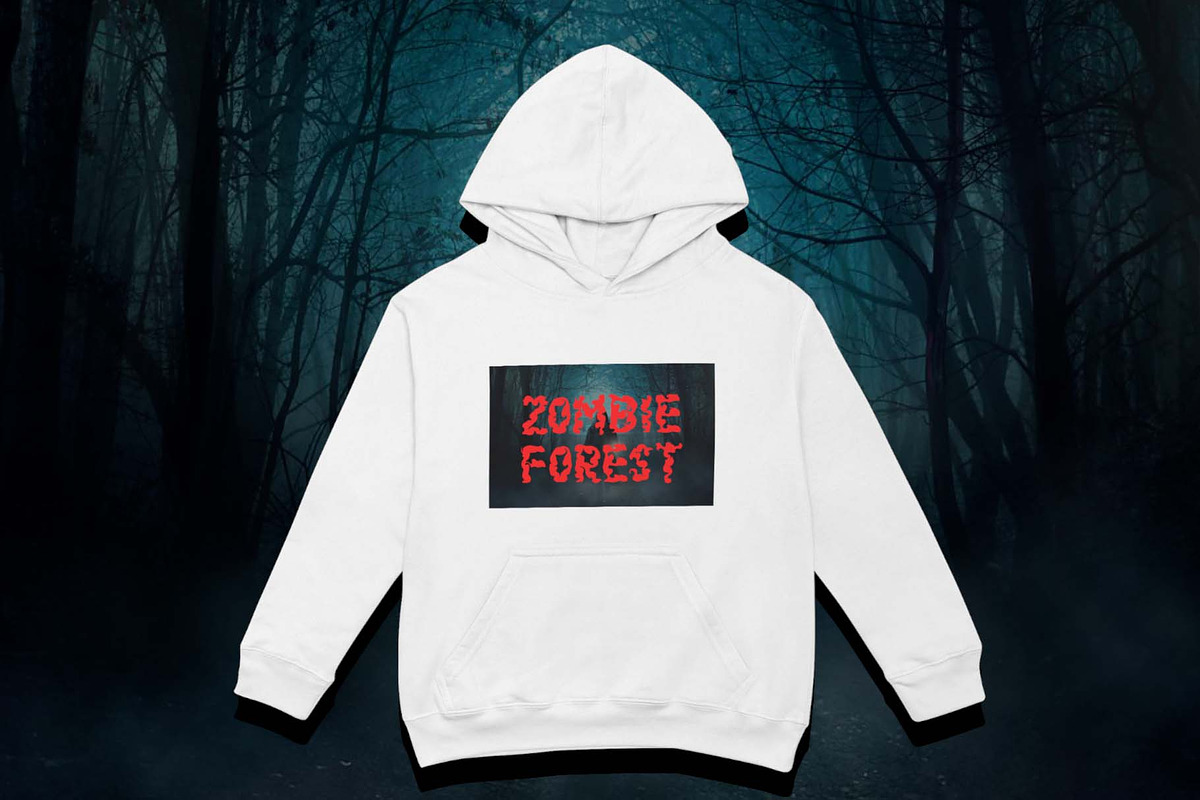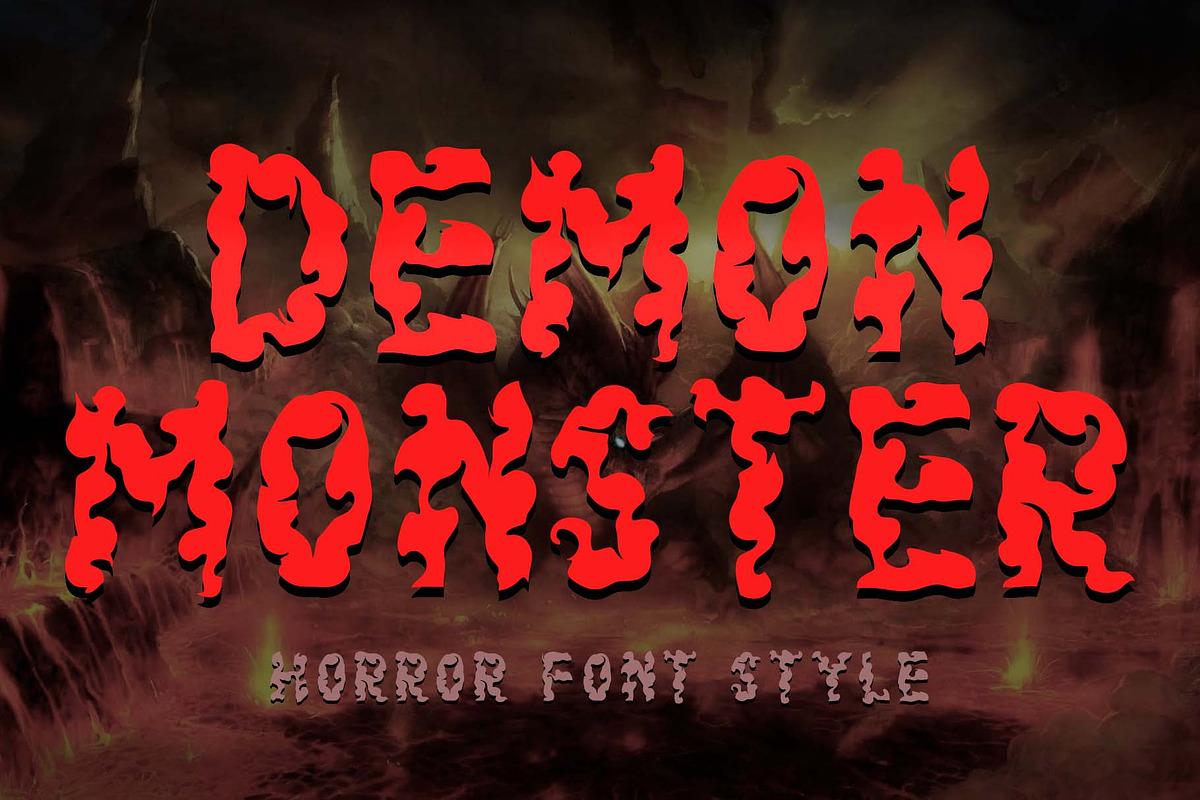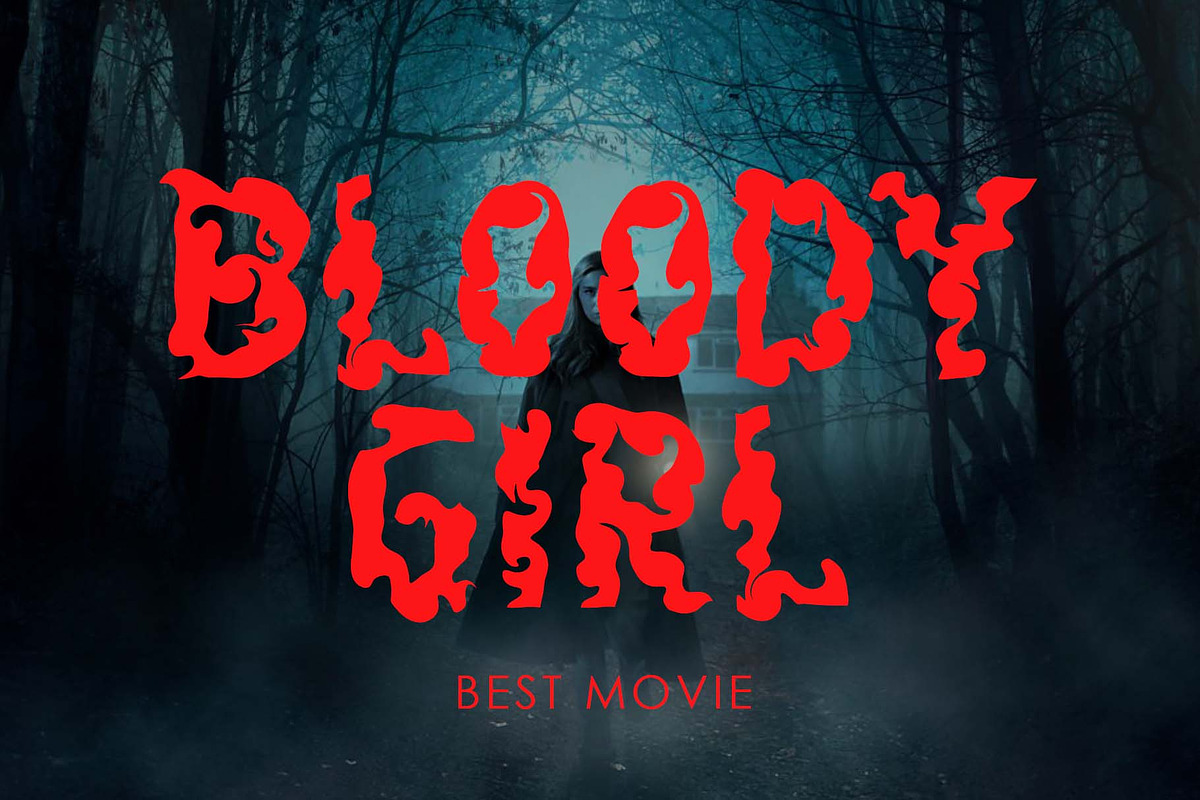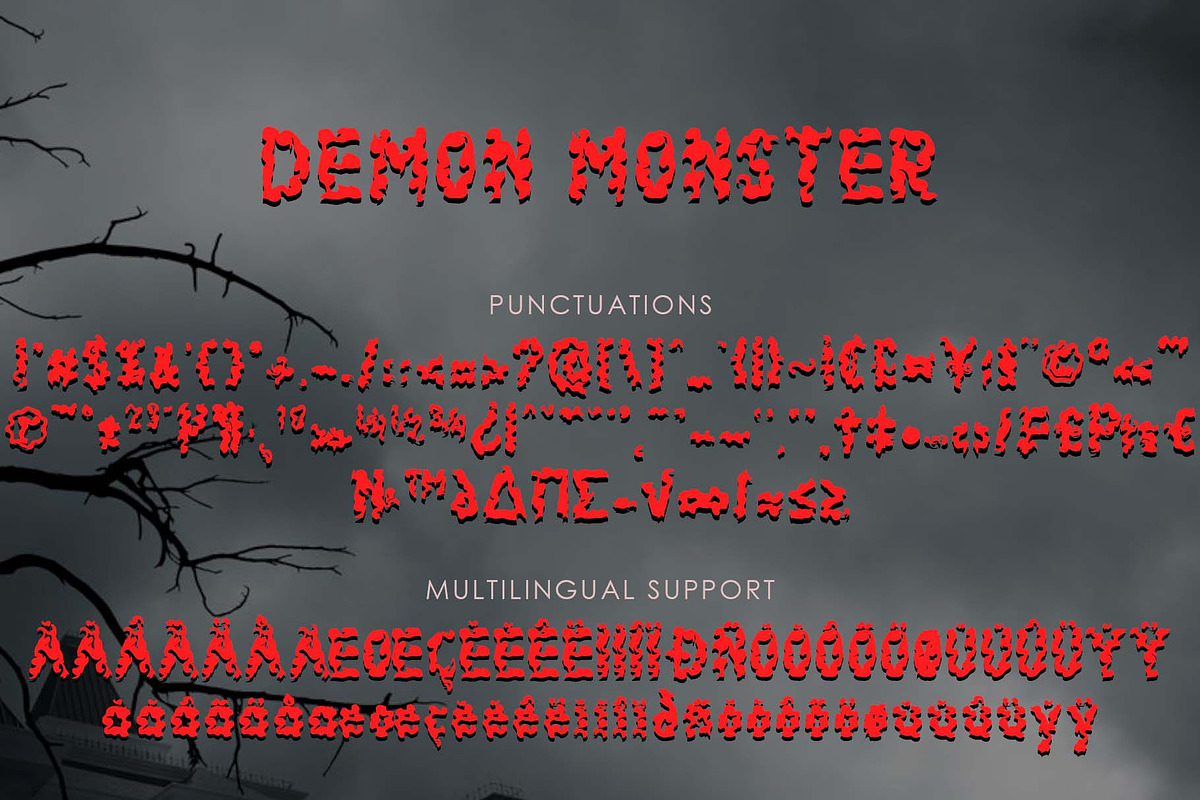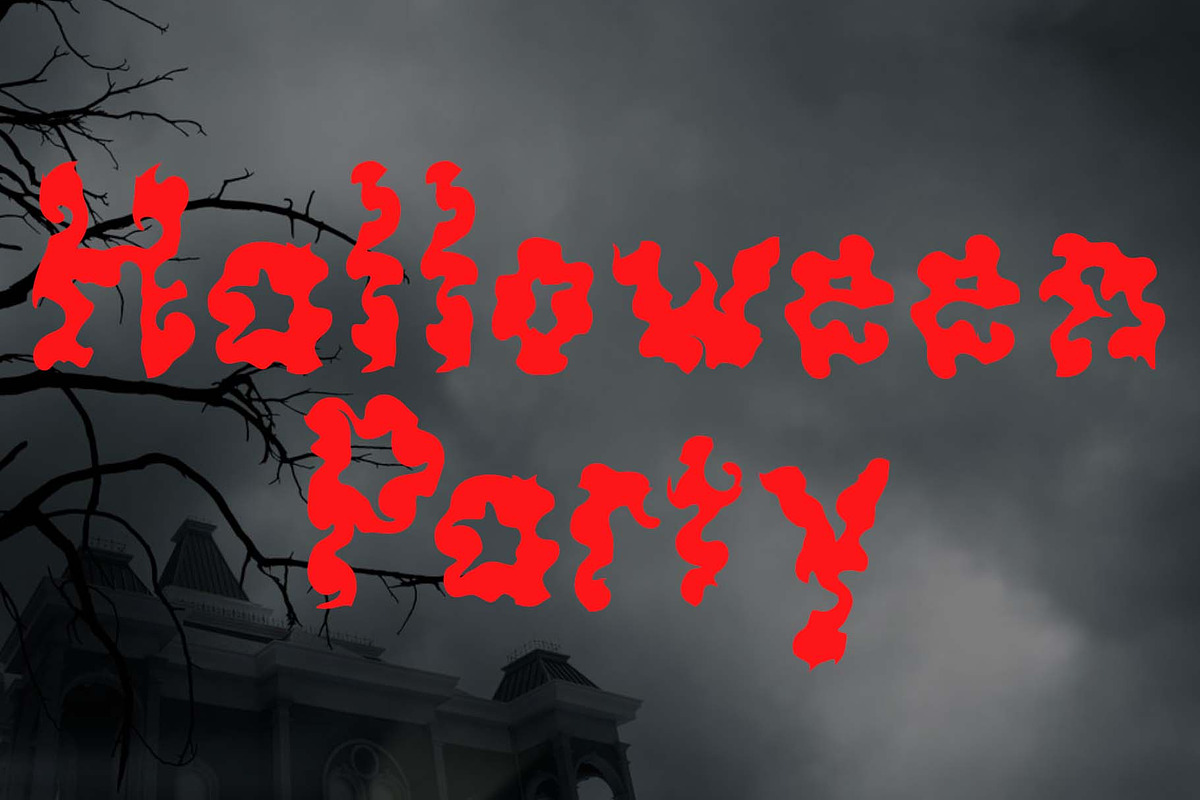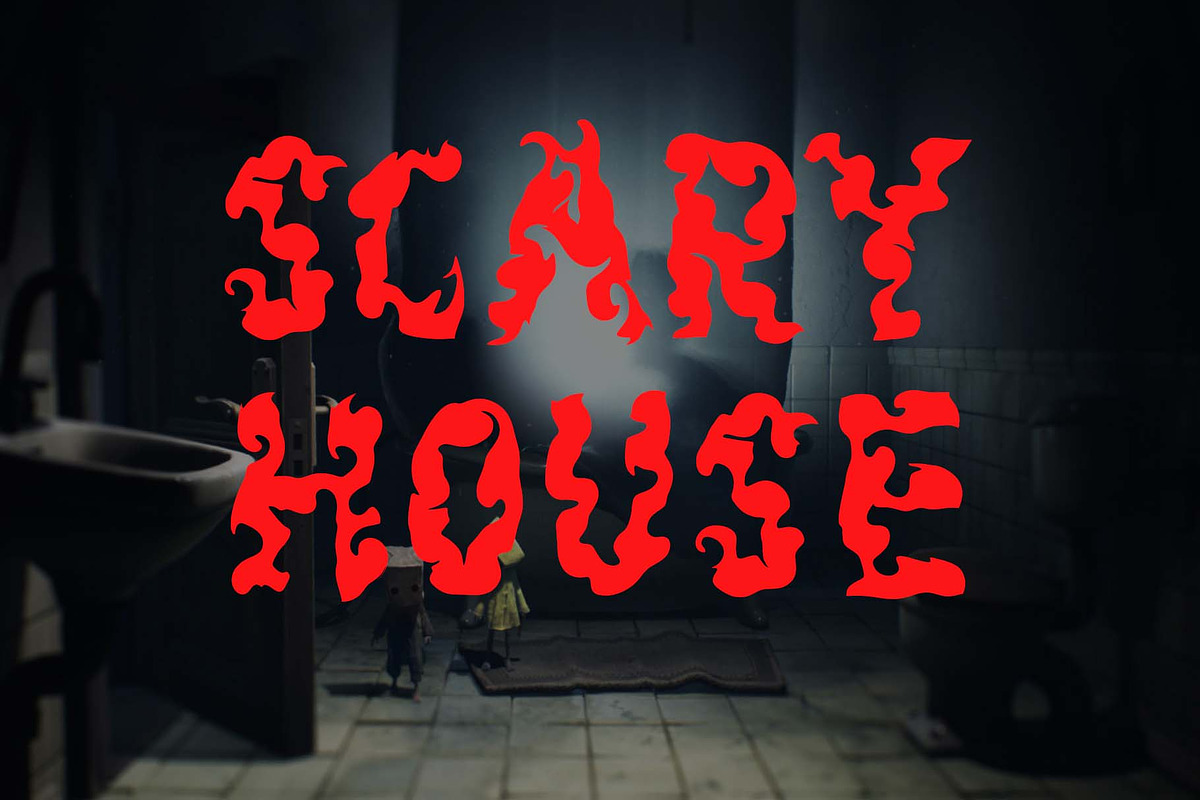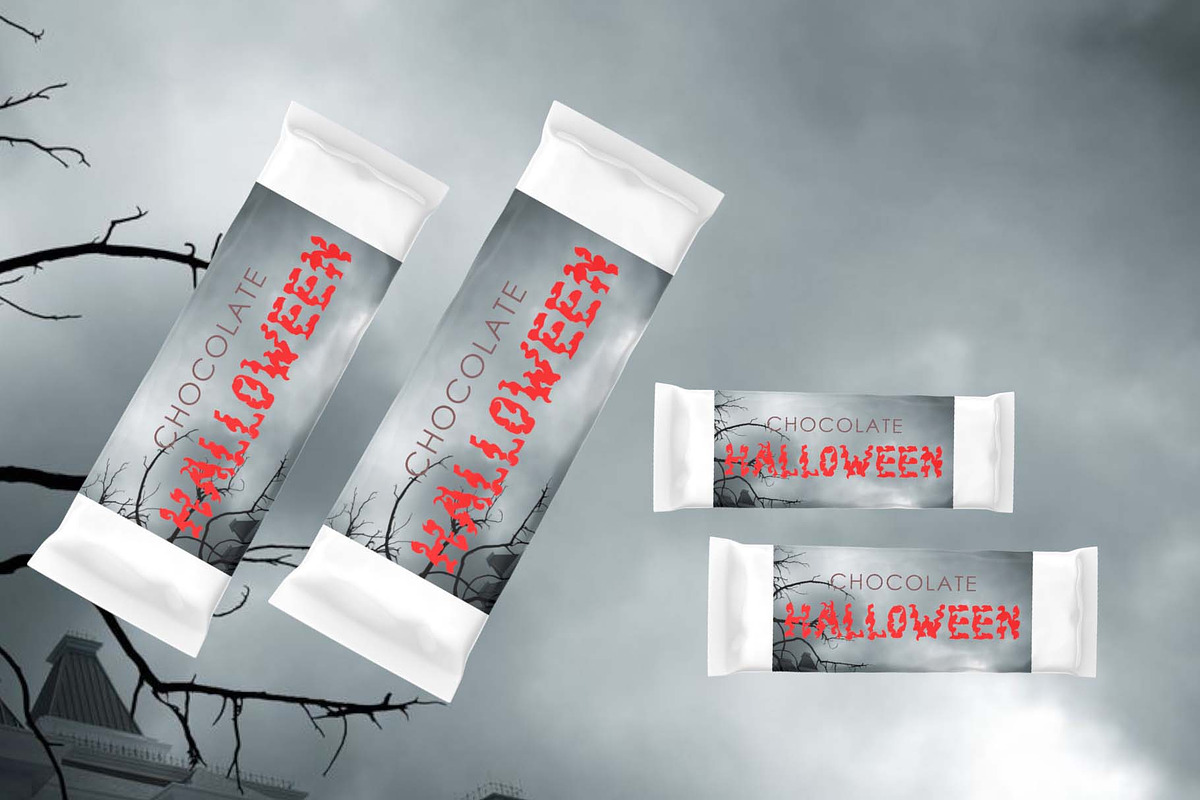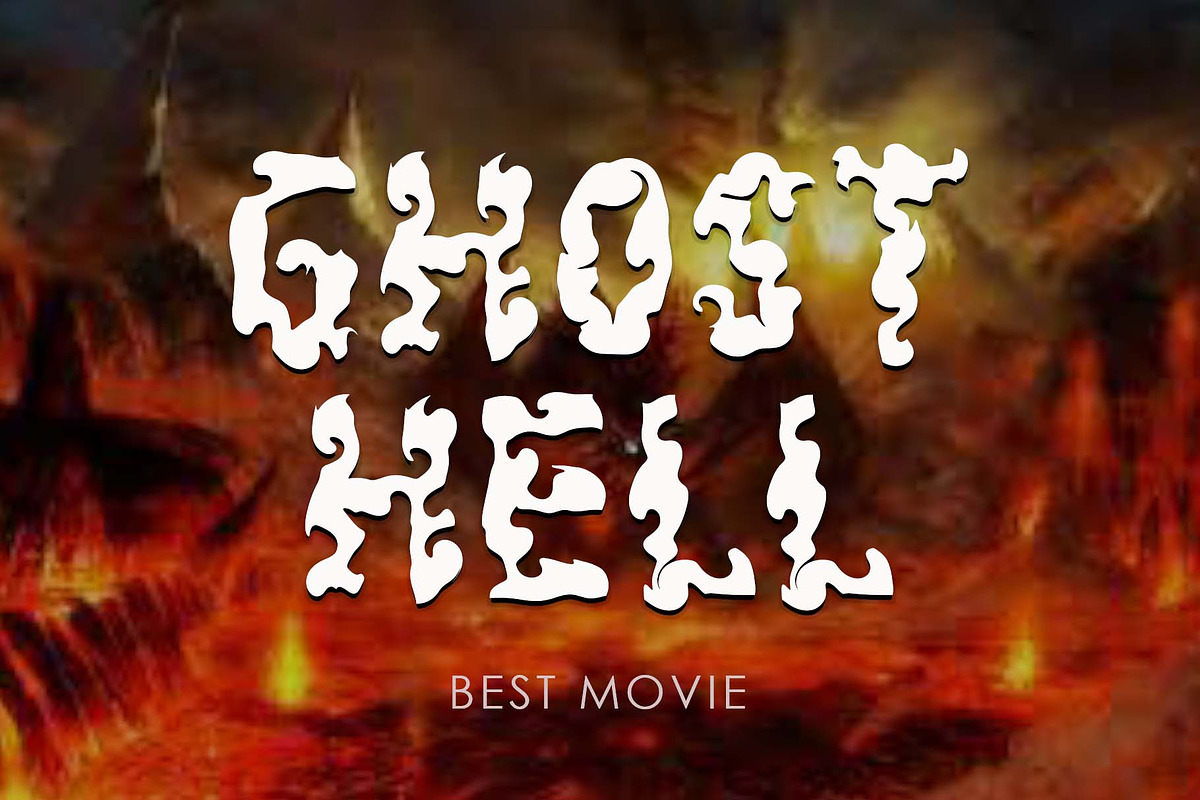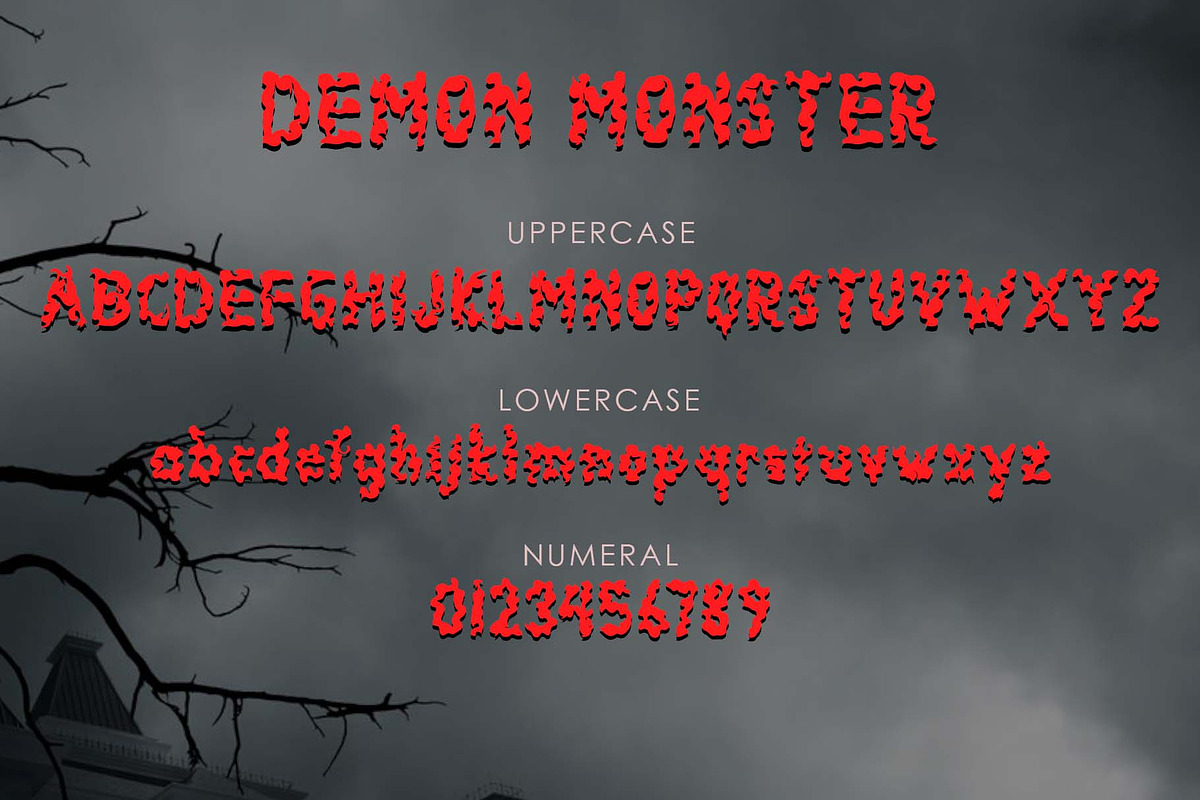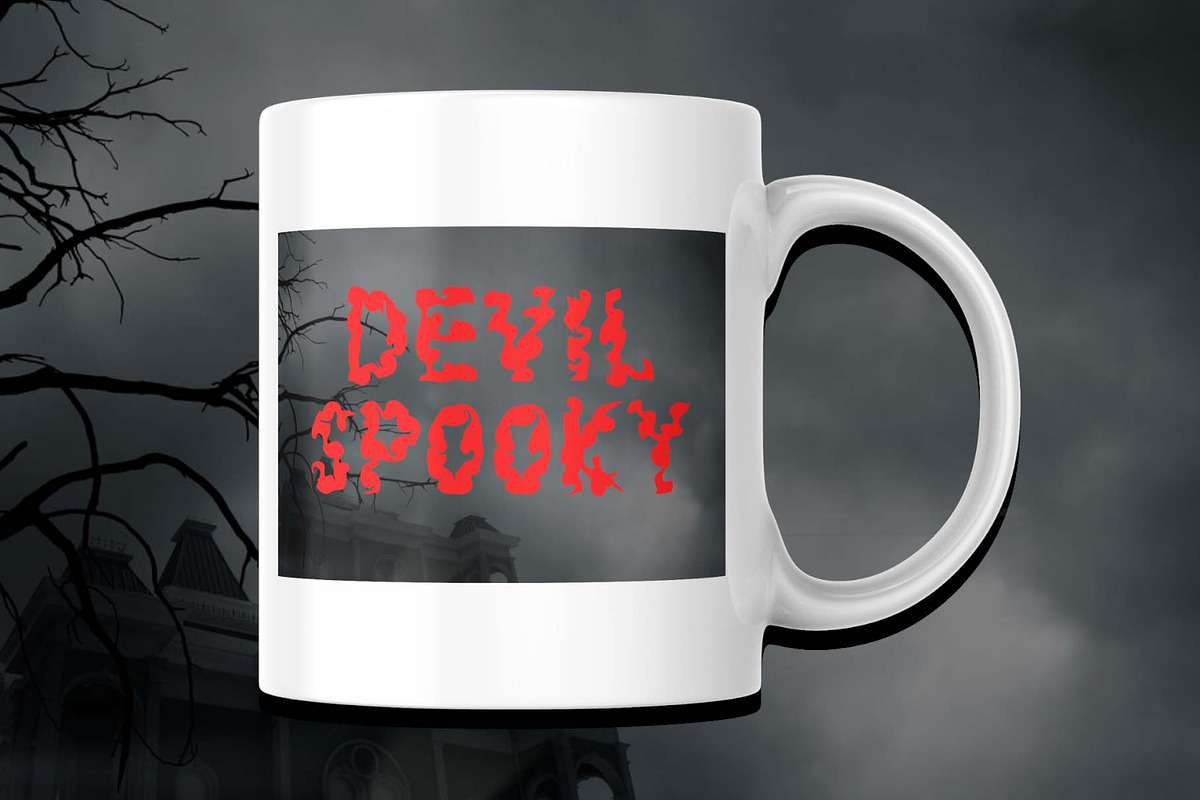
Demon Monster
"Demon Monster" is a scary horror font. This font is equipped with uppercase, lowercase, numerals, punctuations and multilingual support. Very suitable for Halloween, film titles, book titles, posters, banners, branding, stickers, logos, Christmas, back to school, summer, tumblers, t-shirts, jackets and others.